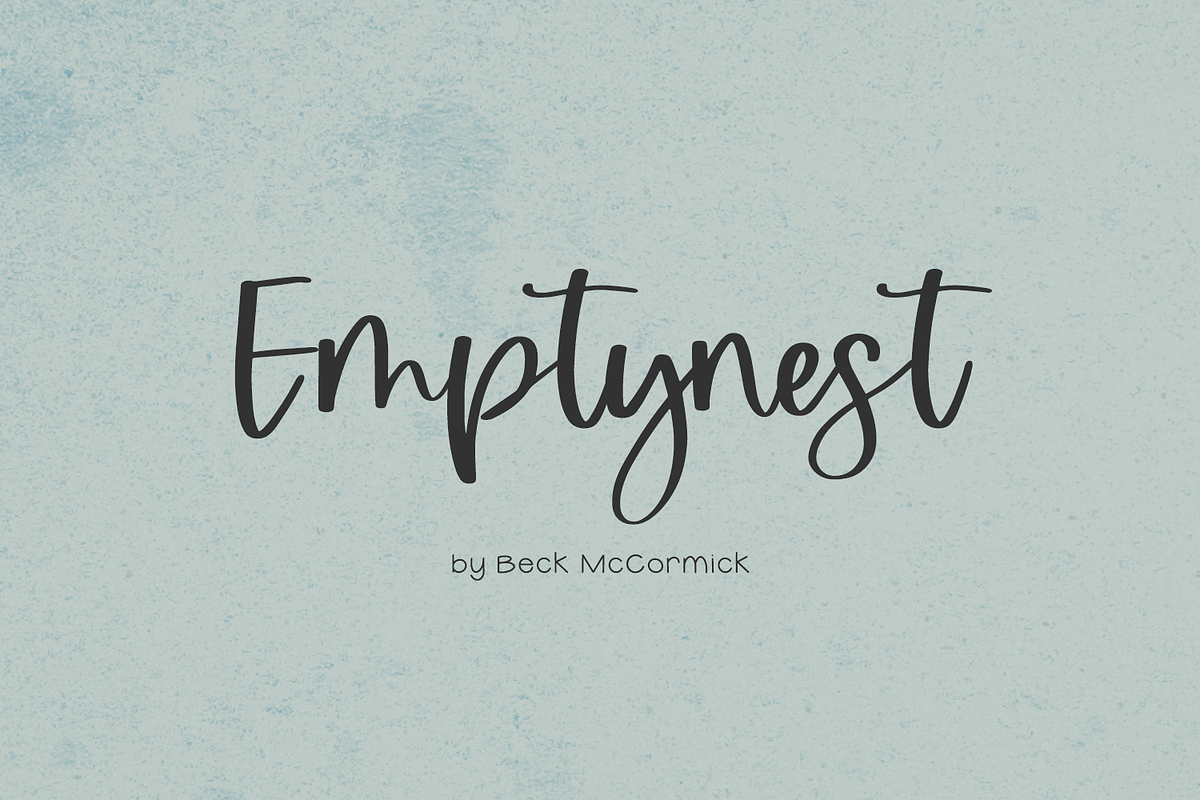
Emptynest Script Font Free Download is a modern and elegant handwritten script typeface with flowing curves and sophisticated letterforms. Perfect for creating personalized designs, this font is ideal for wedding invitations, branding, social media graphics, logos, and packaging. Its stylish, signature-like look adds a personal, creative touch to any project.
With its smooth, natural feel, Emptynest Script Font Free Download brings warmth and elegance to your typography, making it suitable for both digital and print projects. Whether you're crafting a chic brand identity or an artistic greeting card, this font adds a touch of personality and charm.
Create beautiful, custom typography with Emptynest Script Font Free Download, and let your designs shine with a sophisticated, handwritten style. Perfect for creatives looking for a refined yet accessible script font.